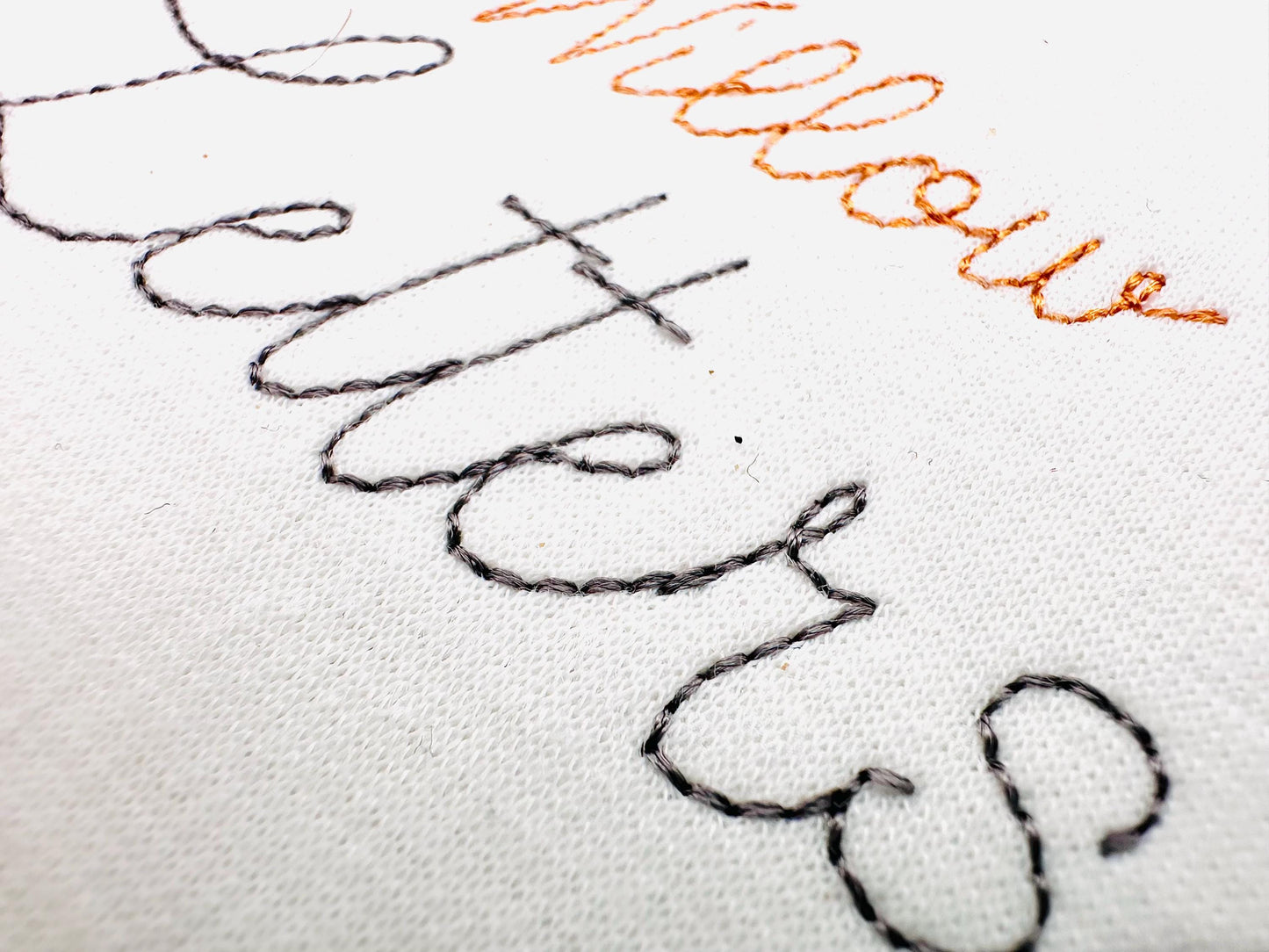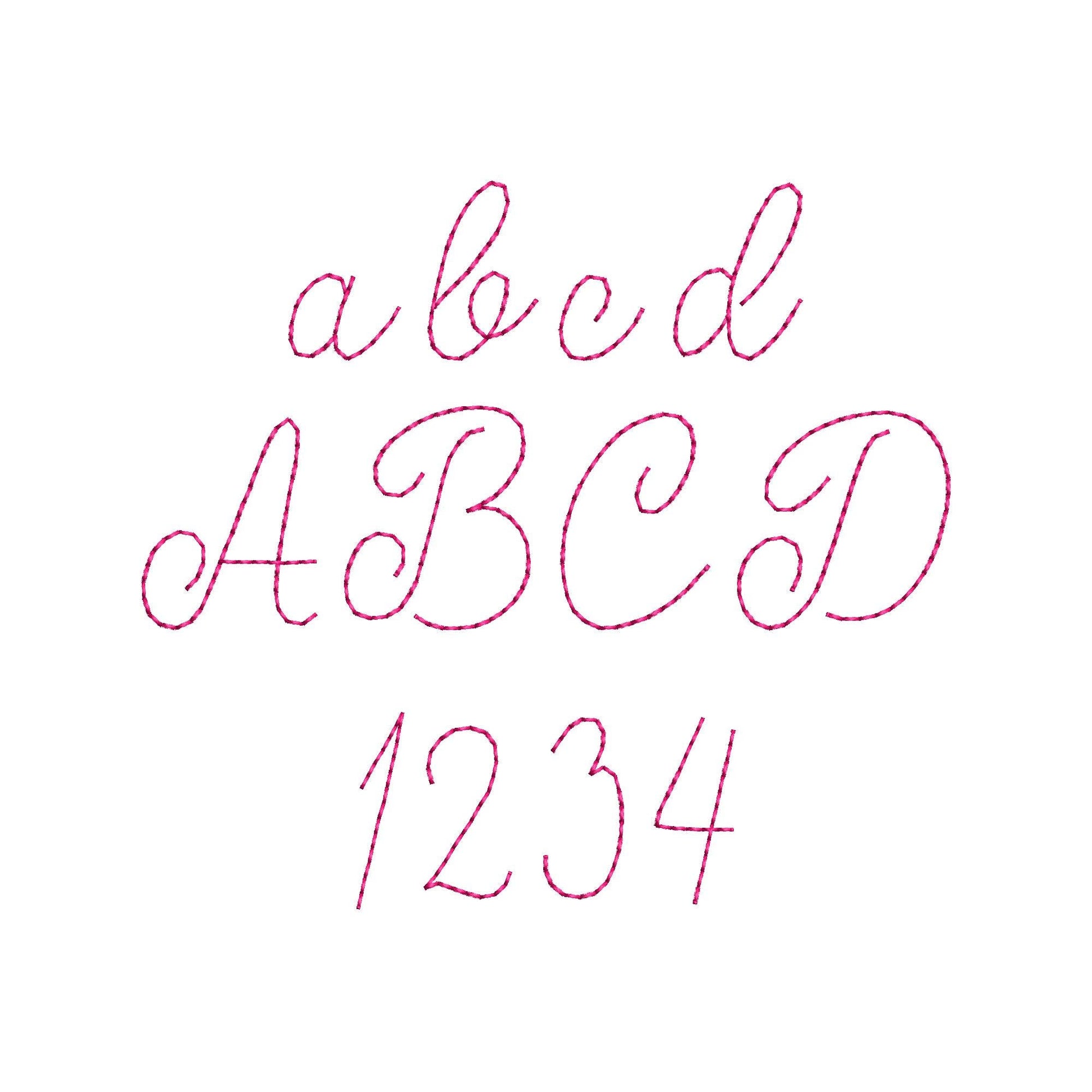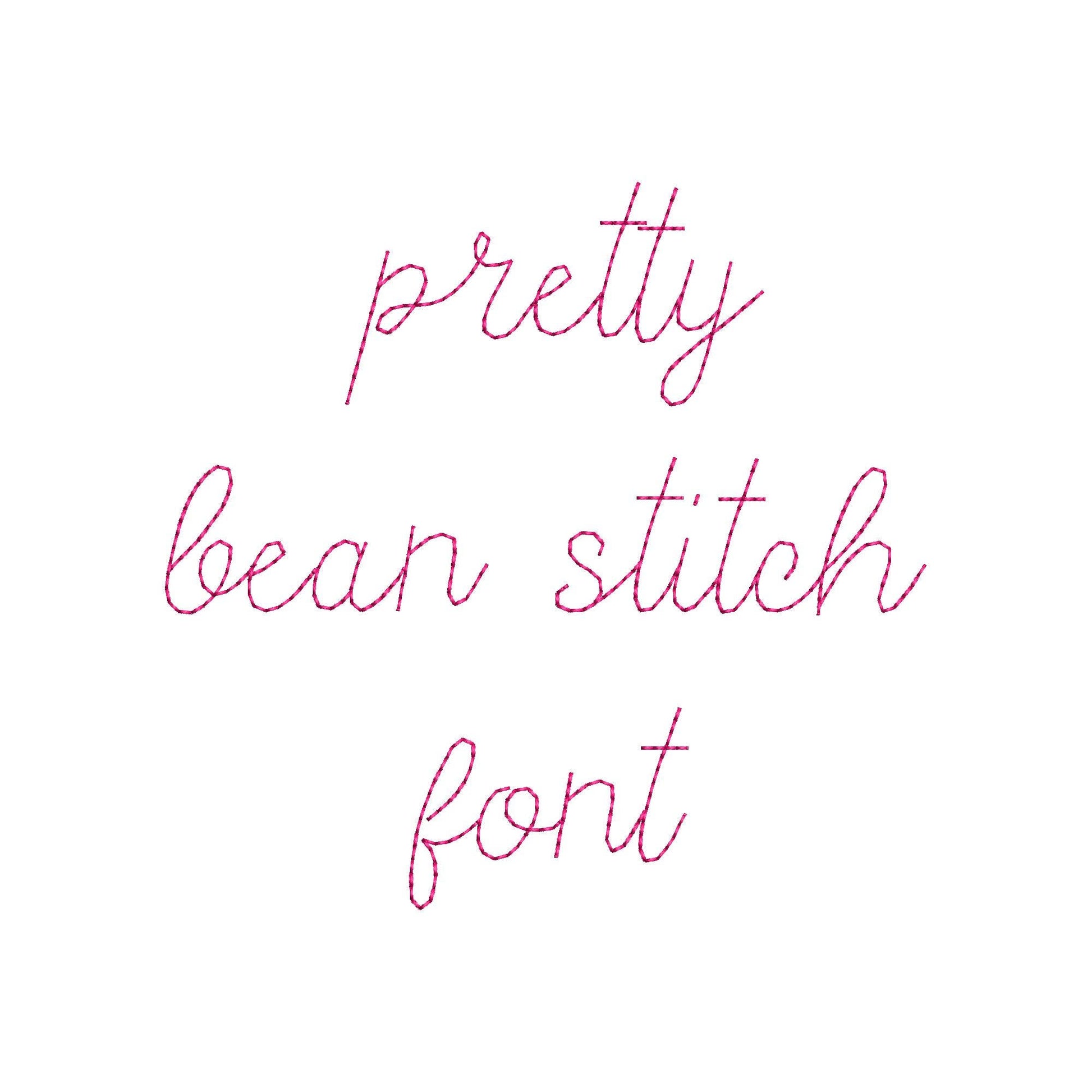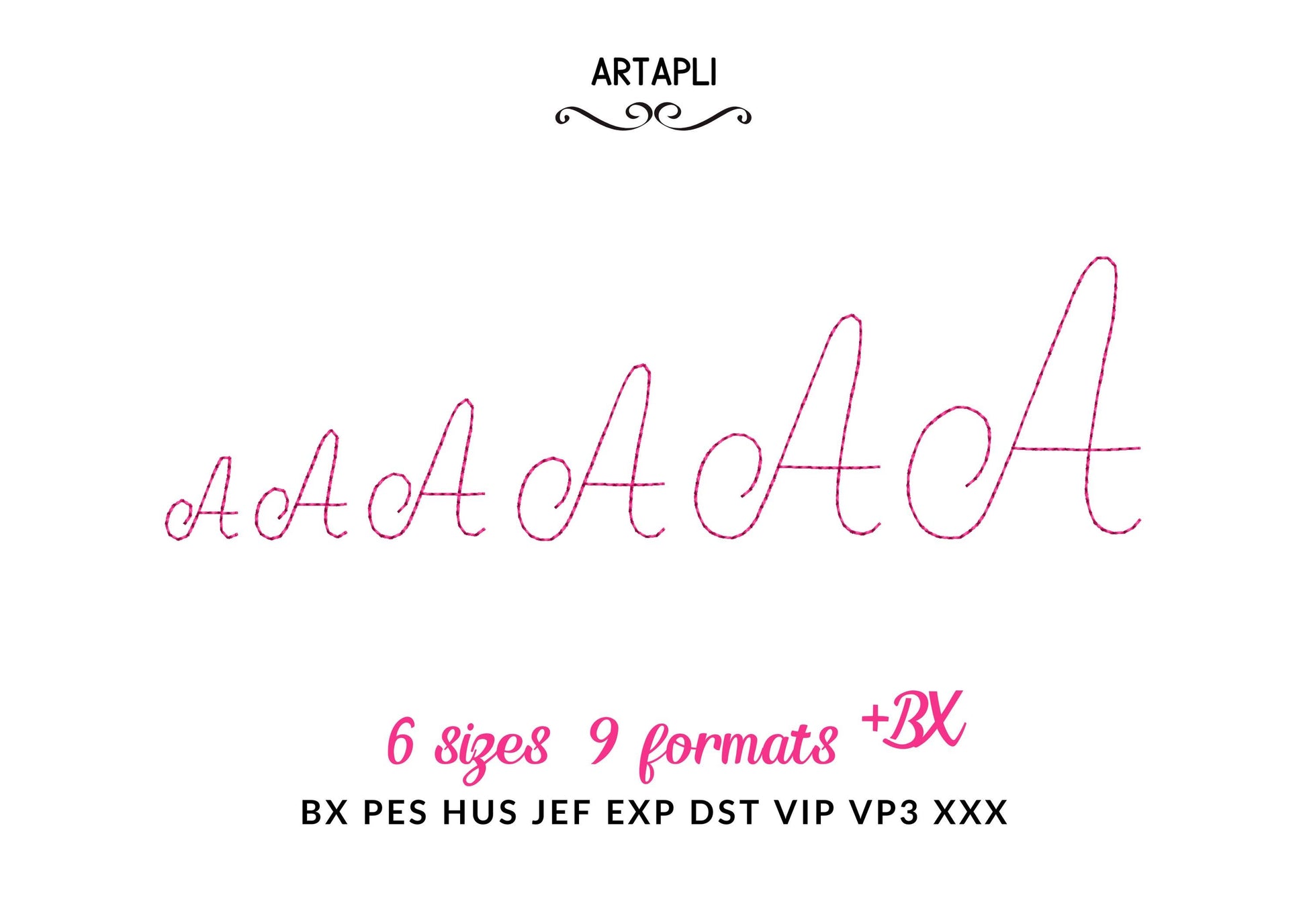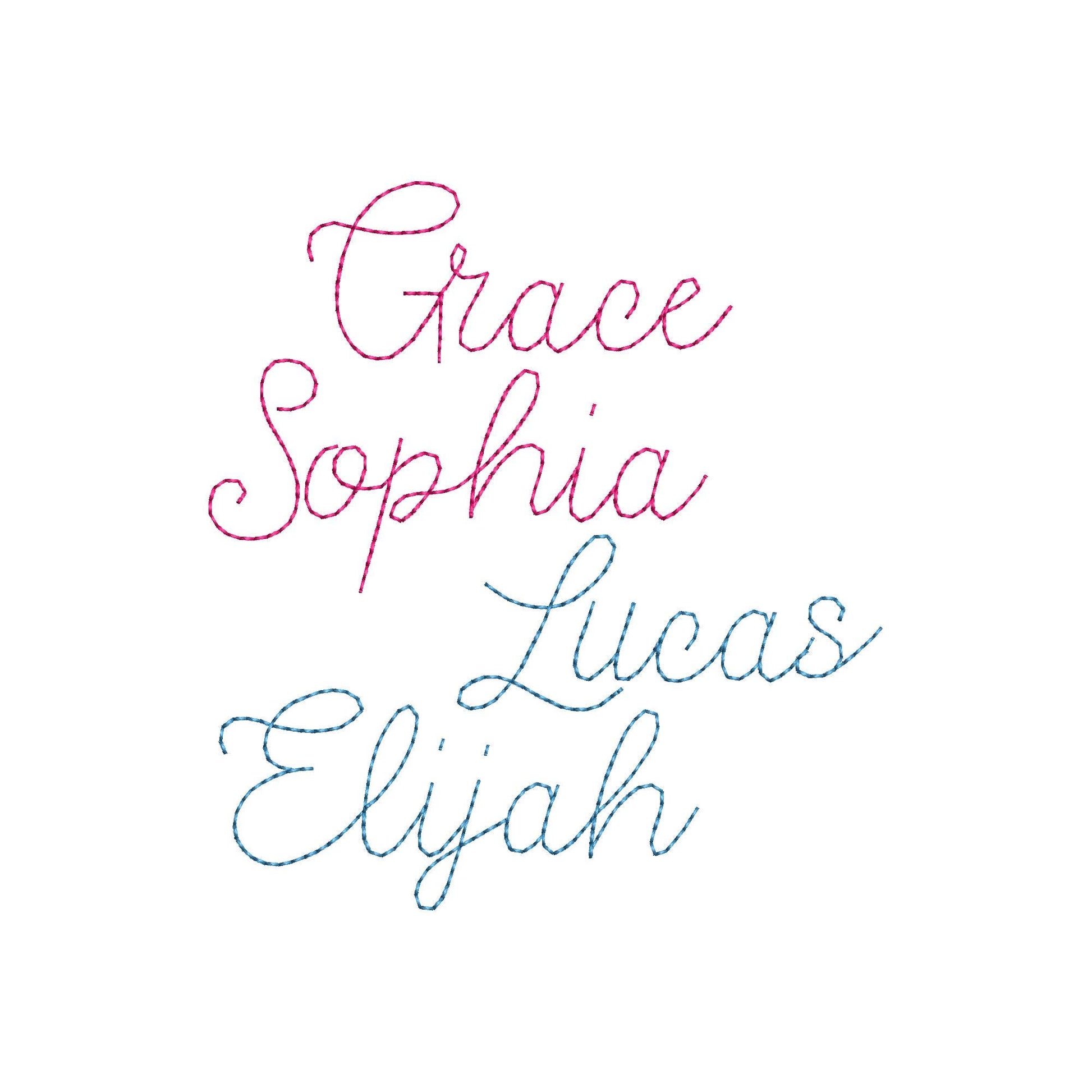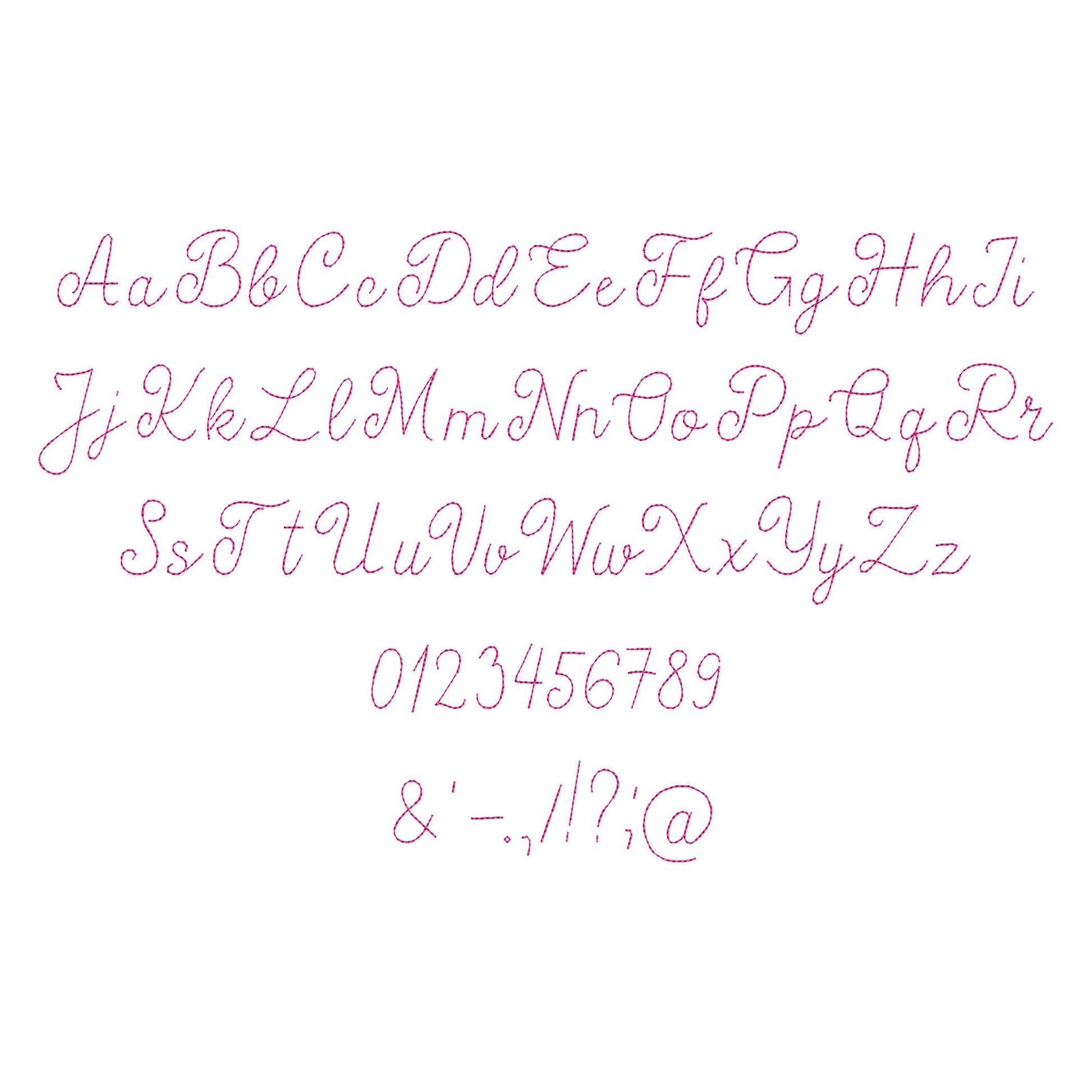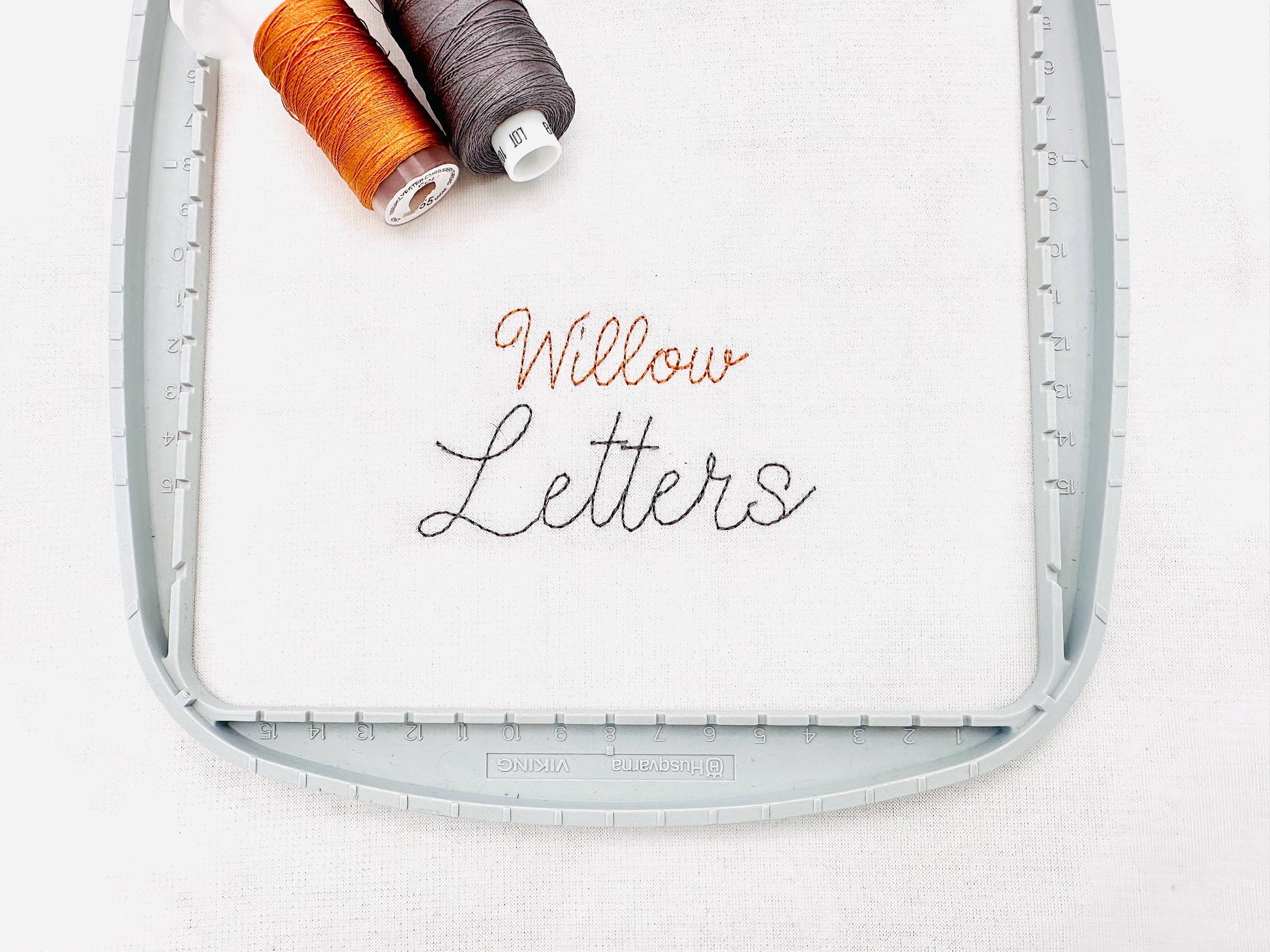
Handwritten Script Font Pretty Bean
Or click to open the linkPretty Bean is a light handwritten script font in bean stitch. Lovely for small names on baby items, towels, bags and gifts.
A delicate bean stitch script with uppercase and lowercase letters A-Z, numbers 0-9 and punctuation, in one size: 2 inches.
- Script bean stitch alphabet, uppercase and lowercase A-Z
- Numbers 0-9 and punctuation